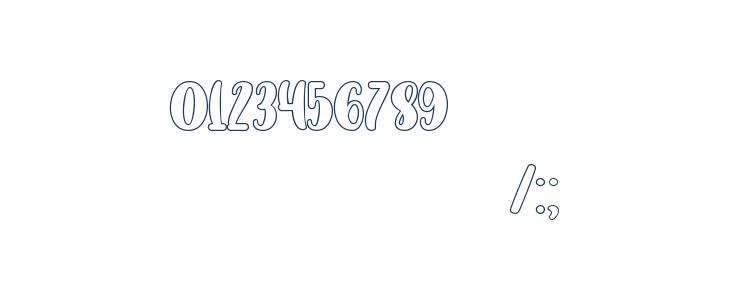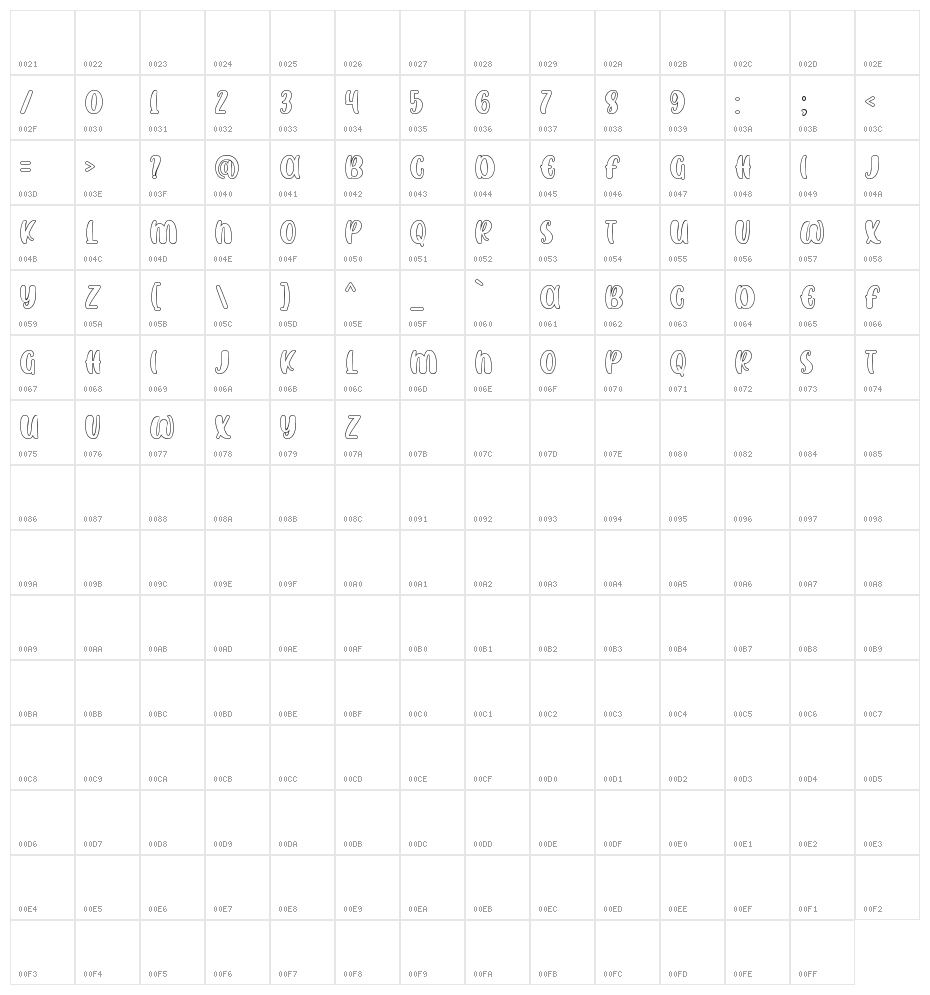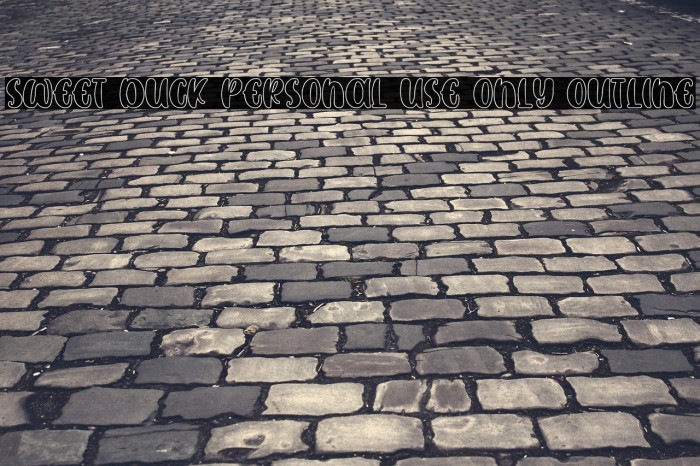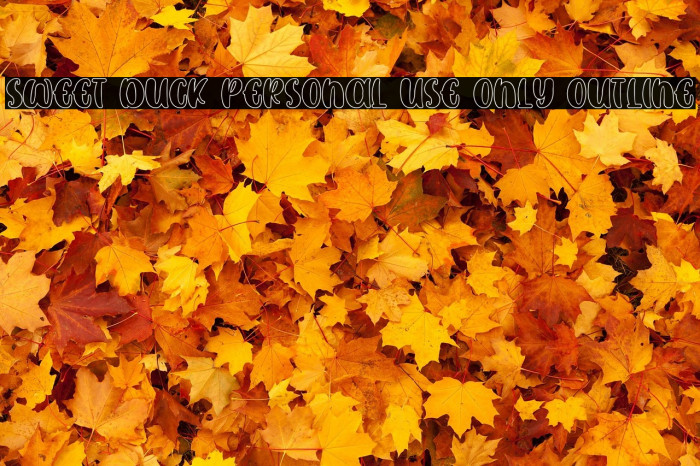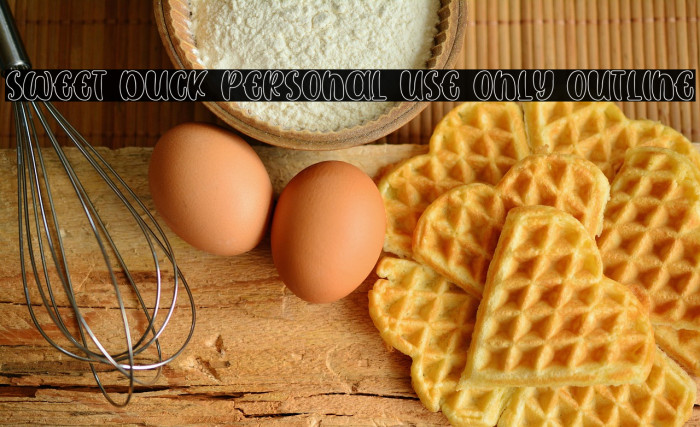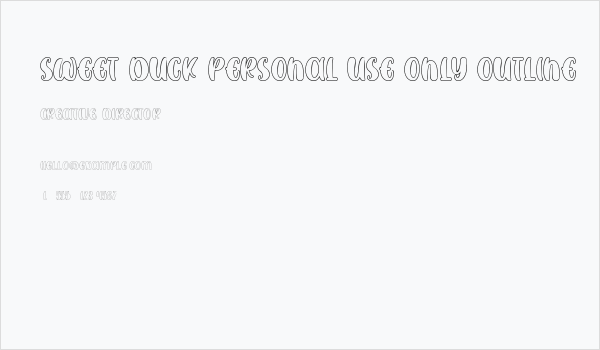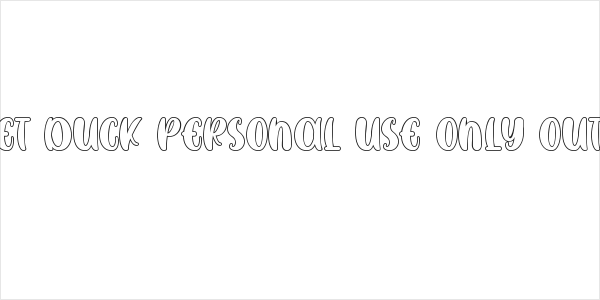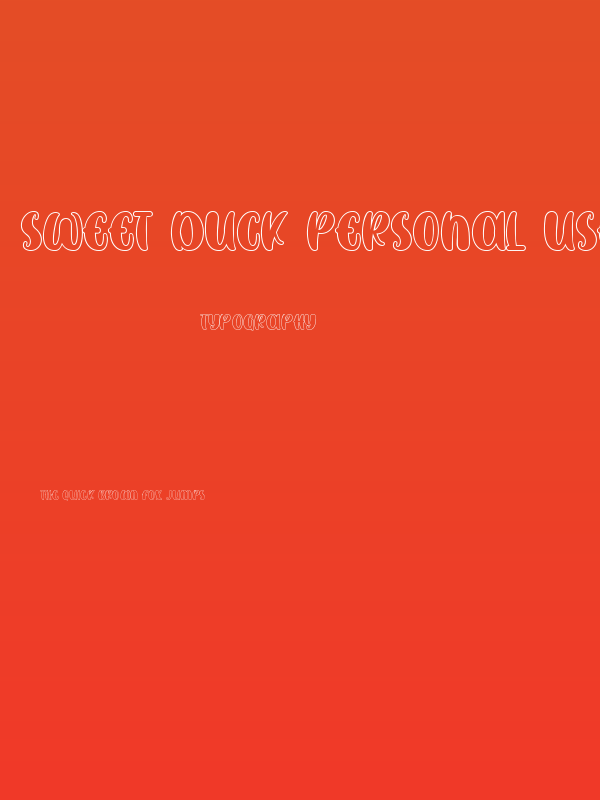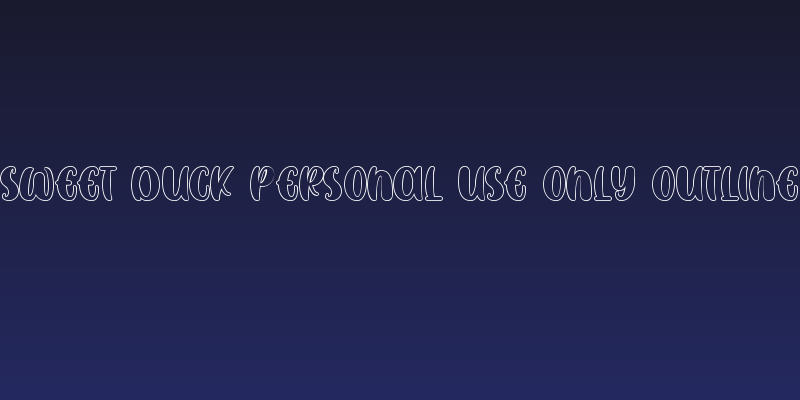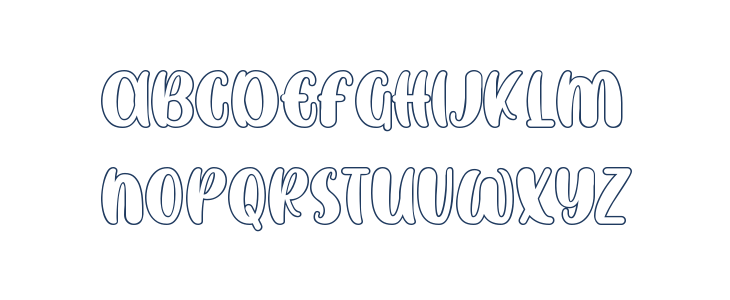
SWEET DUCK Personal Use Only Outline Font
SWEET DUCK Personal Use Only Outline Description
This playful and whimsical font features bold, rounded letters with a distinct outline style. Each character is crafted with a smooth, flowing design that gives it a friendly and approachable appearance. The uppercase and lowercase letters maintain a consistent style, with the uppercase being slightly larger and more pronounced. Numbers and special characters are included, matching the overall aesthetic. The font's outline nature makes it ideal for creating eye-catching designs where the text needs to stand out. Its unique style is perfect for projects that require a touch of fun and creativity.
| Use Case | Headlines, Logos, Creative Designs |
| Proposed Projects | Ideal for children's books, playful branding, posters, and creative invitations. |